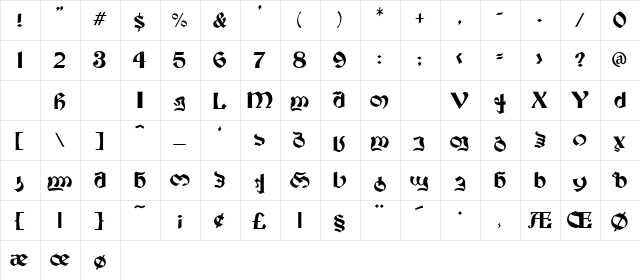
Becker Georgian Regular
Design Context for Becker Georgian Typeface
Becker Georgian is a composed and adaptable typeface that performs quietly and consistently across a wide range of design contexts.